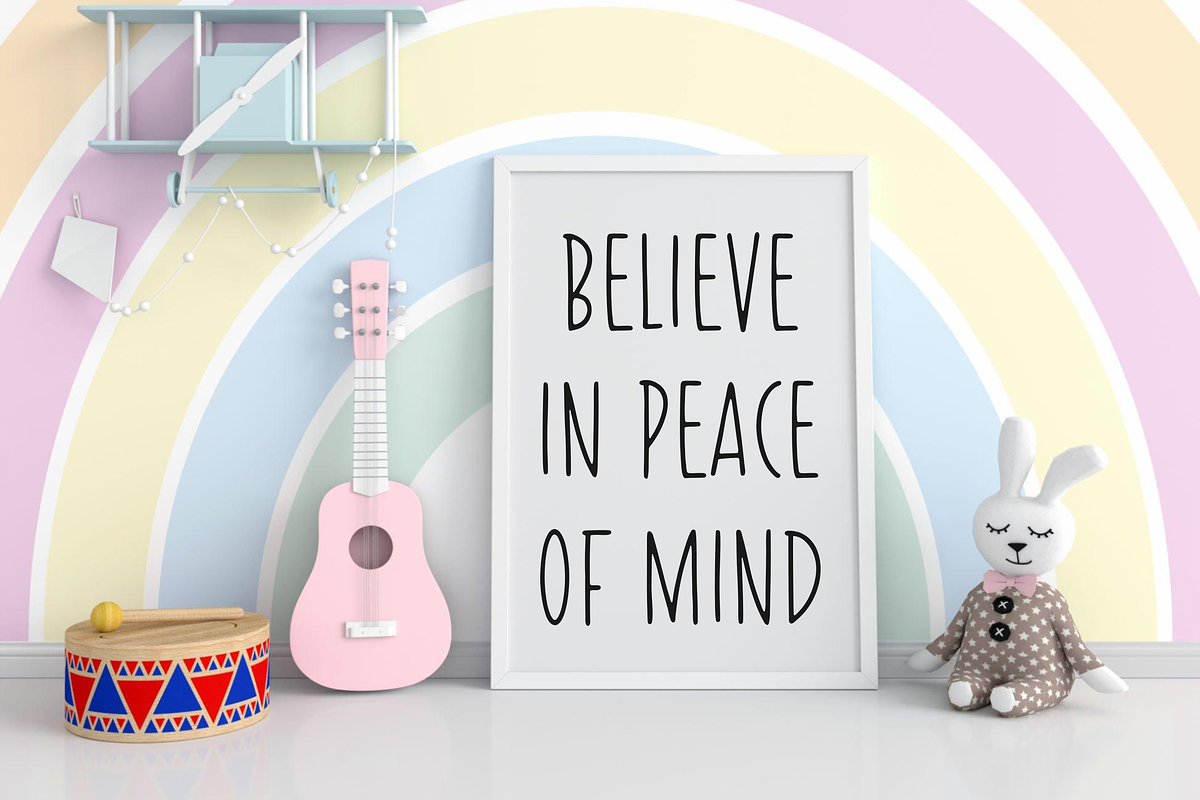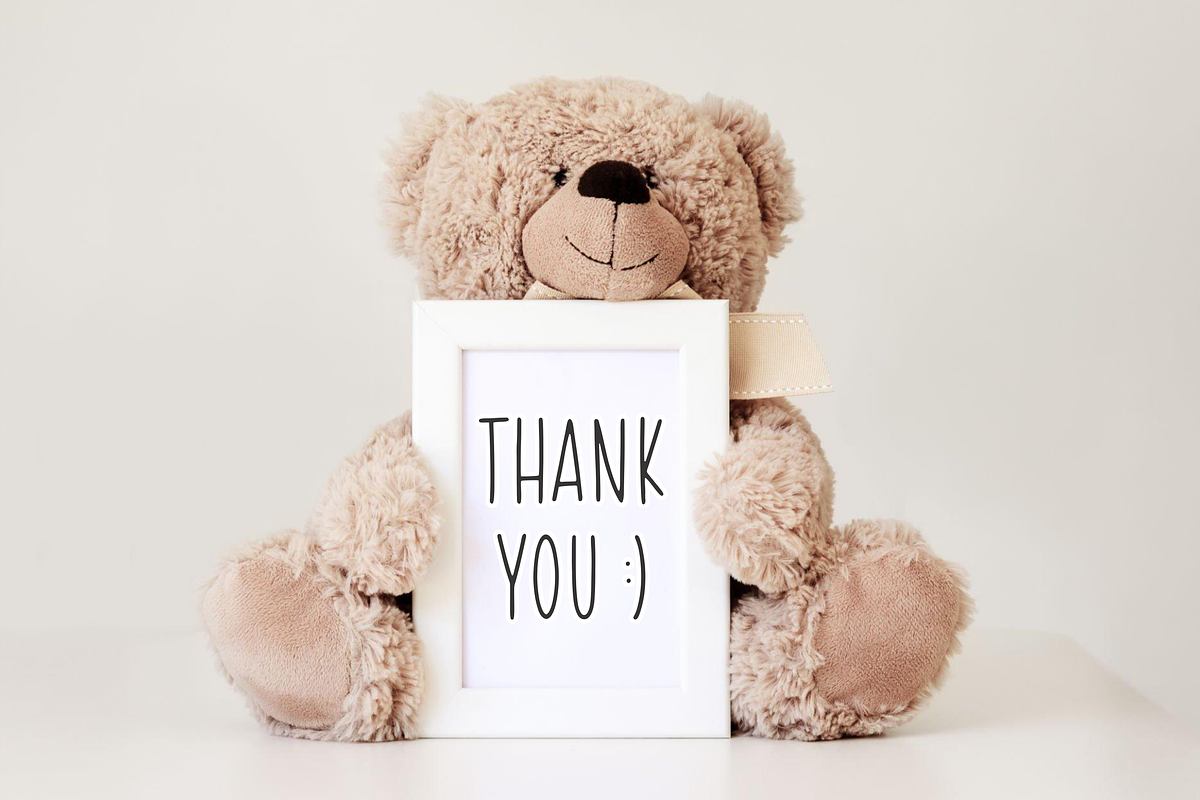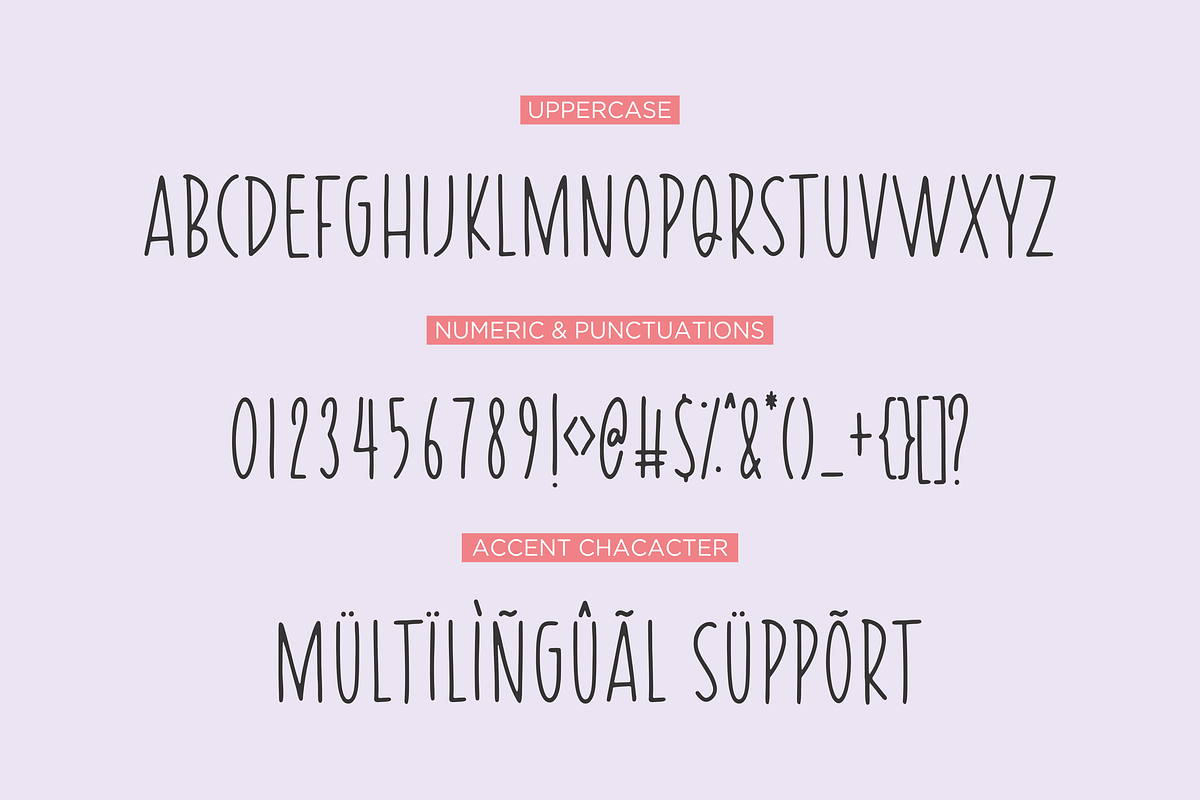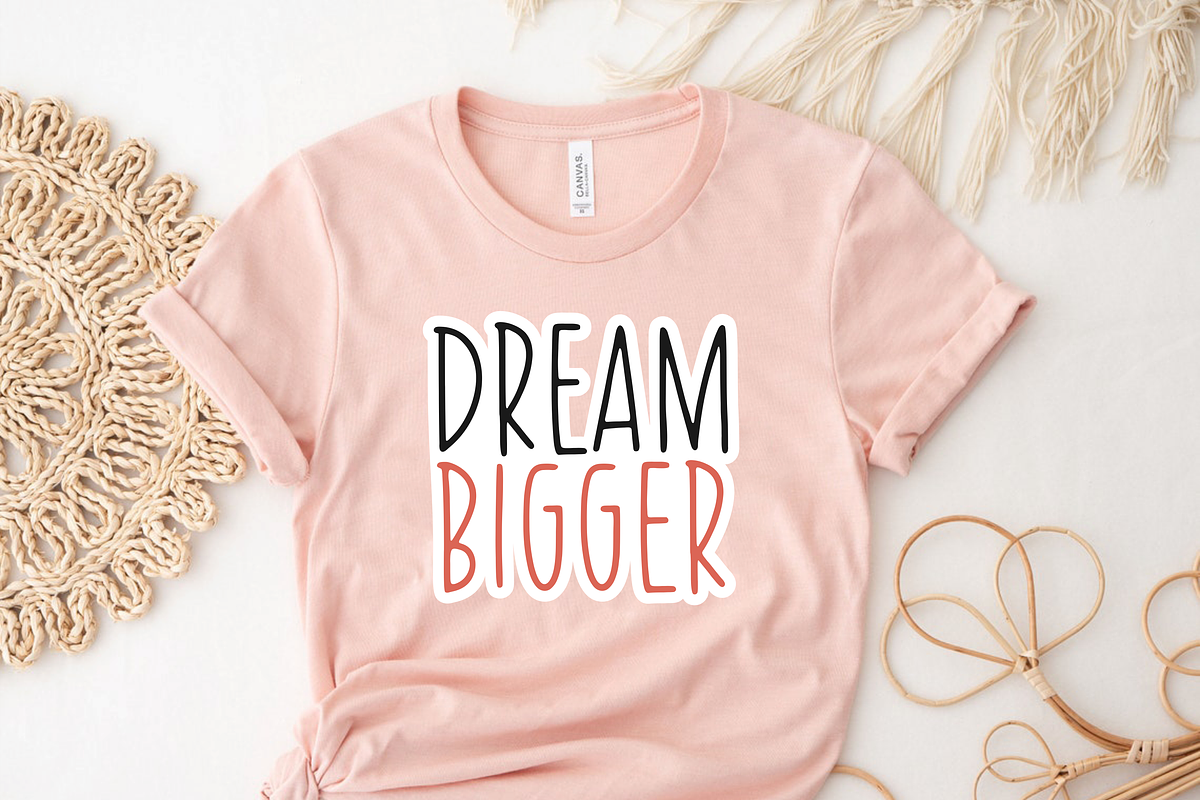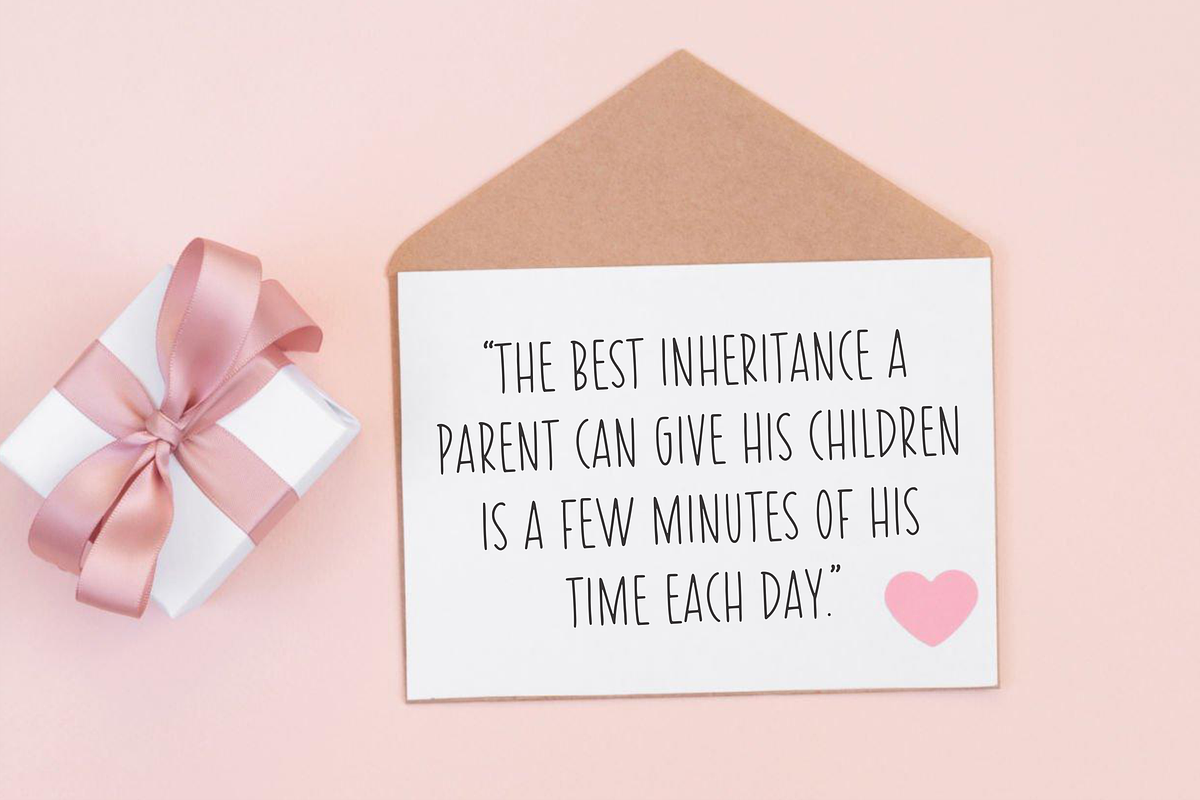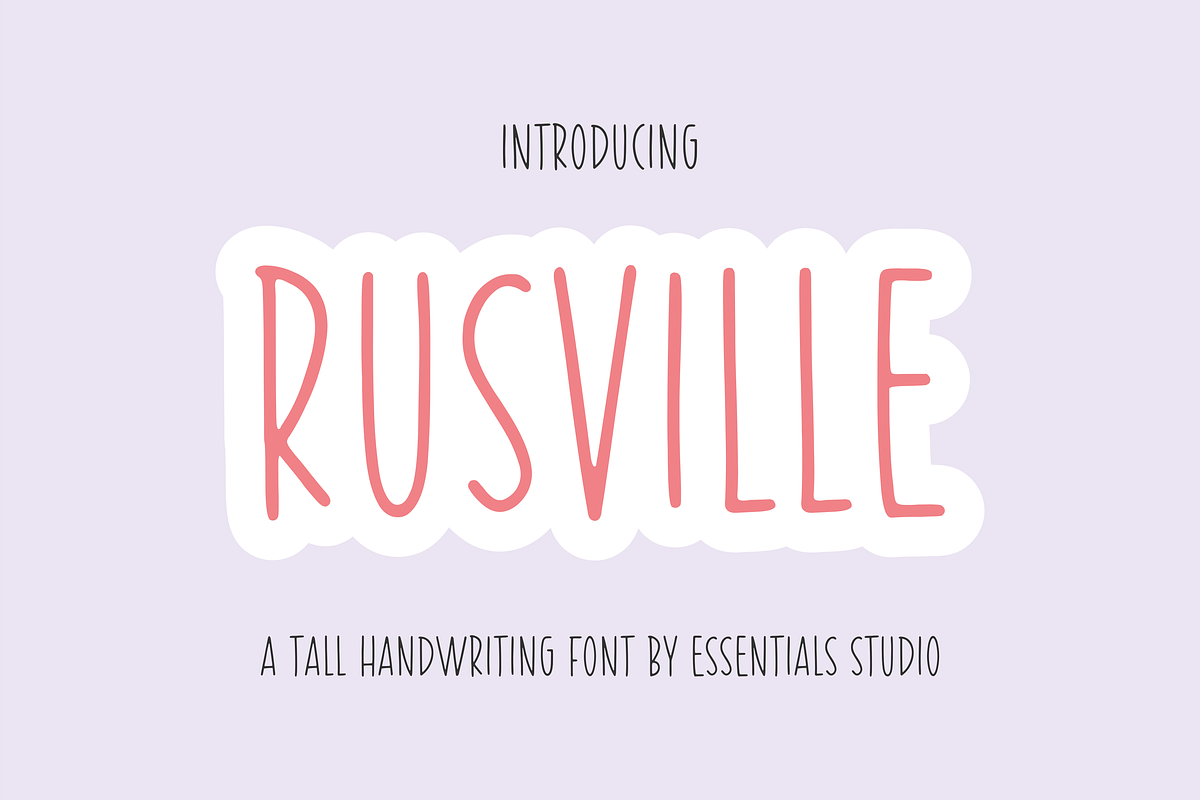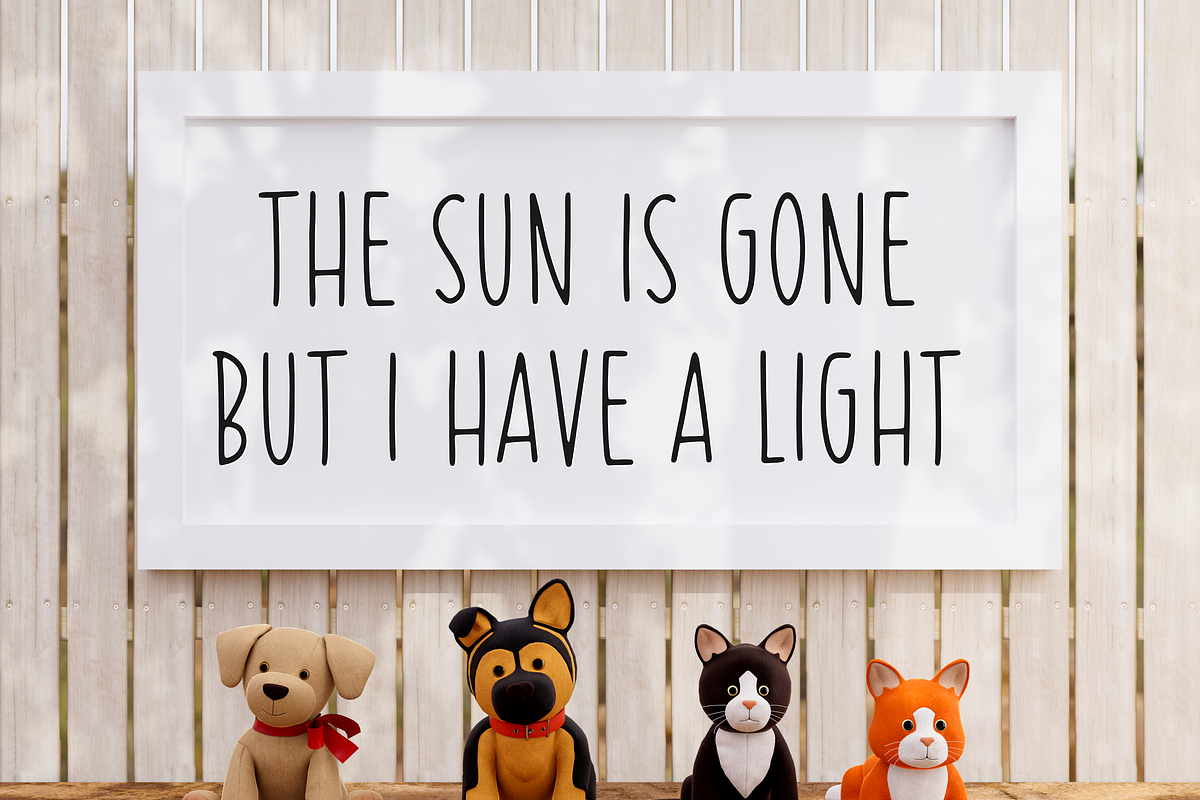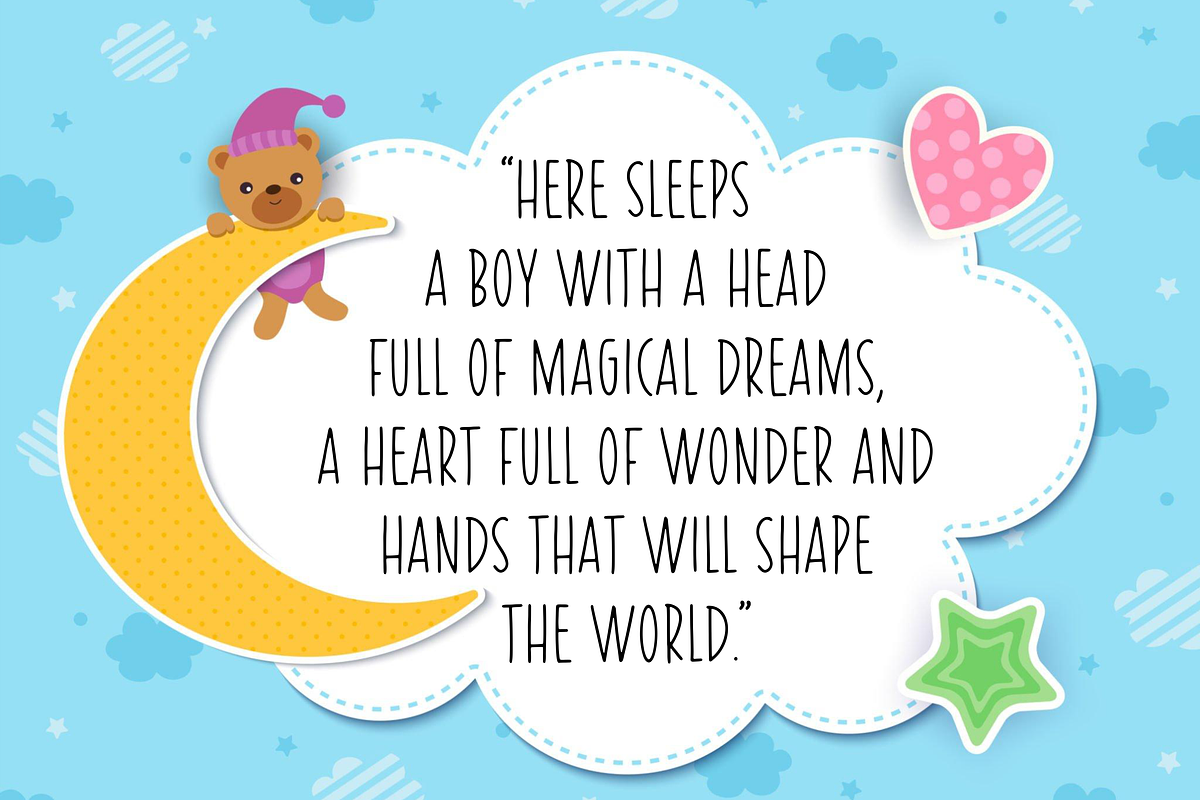
RUSVILLE
Introducing by Essentials Studio
Proudly Present, RUSVILLE
RUSVILLE Is a A Tall Handwriting Font
RUSVILLE is perfect for product packaging, branding project, megazine, social media, wedding, or just used to express words above the background.